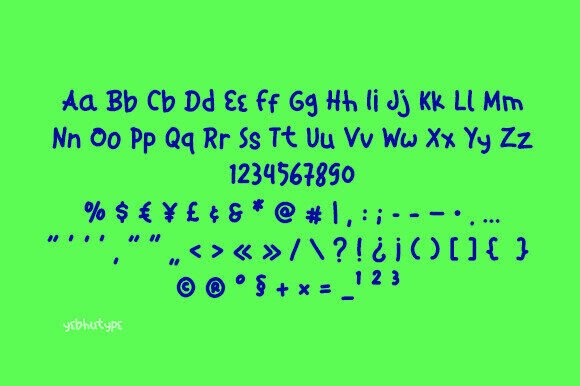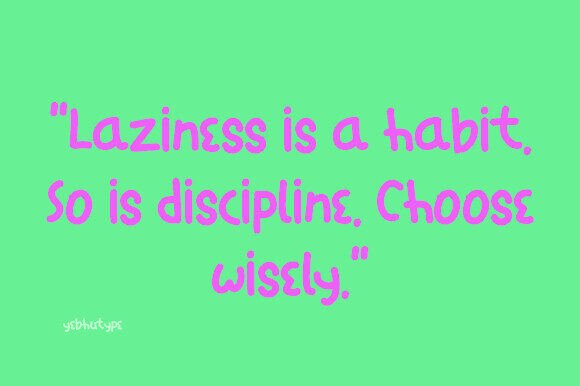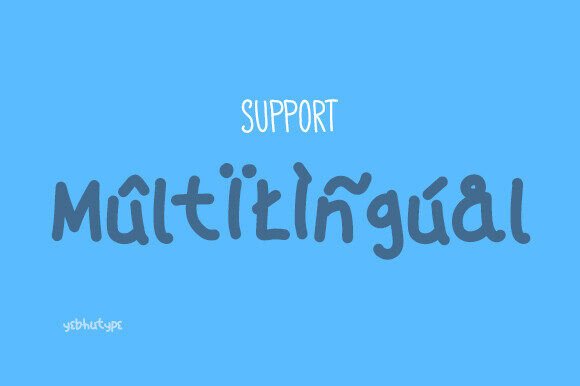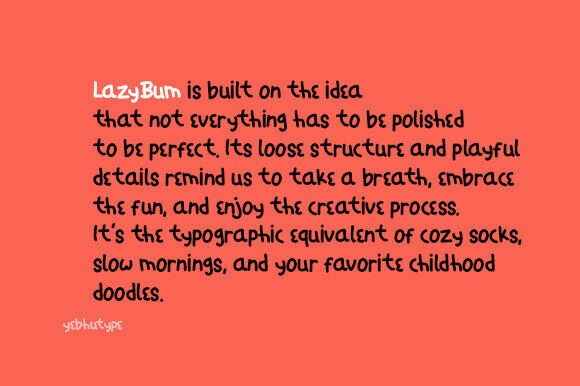
Introduction to Lazybum Font
Have you ever sat with a blank page, staring at a cursor, and just wanted to scribble something down without worrying about perfection? That’s the magic of Lazybum Font – a delightfully relaxed typeface that brings the carefree spirit of handwritten doodles and lazy afternoons to your design. With its quirky lines and bouncy rhythm, Lazybum Font is more than just a font – it’s a vibe that captures the joy of creating without pressure.
Whether you’re working on a creative project for kids, dreamers, or just looking to add personality to your words, Lazybum Font wraps your message in warmth, wonder, and just the right amount of mischief. This design resource is perfect for designers who want to add a touch of whimsy to their work without sacrificing high quality. And the best part? Lazybum Font is available for free download, complete with a transparent background that makes it easy to use in any design.
Key Features of Lazybum Font
- Features a unique, modern aesthetic that can add a touch of sophistication to any design
Honest Review: Lazybum Font
I recently stumbled upon the Lazybum Font while searching for a unique design resource for a creative project. I was drawn to its quirky, laid-back vibe, and I was excited to see how it would perform in my design.
What works well: ✨ The Lazybum Font is incredibly versatile and can be used for a variety of design projects, from logos to social media graphics. The font is also highly customizable, with a range of styles and sizes to choose from. The transparent background feature is a bonus, making it easy to layer the font over other design elements.
What doesn’t work so well: ⚠️ One limitation of the Lazybum Font is that it may not be suitable for all types of design projects. The font’s playful, handwritten style may not be the best choice for formal or professional designs. Additionally, the font may not be available in as many languages as some other fonts.
Overall, I was impressed with the Lazybum Font’s high quality and creative possibilities. While it may have some limitations, I think it’s a great addition to any designer’s toolkit.
Pros:
- Unique, laid-back design aesthetic
Cons:
- May not be suitable for formal or professional designs
- May not be available in as many languages
Using Lazybum Font in Creative Projects
The Lazybum Font is a high-quality font that can be used in a variety of creative projects, including logos, posters, and digital graphics. It features a transparent background, making it easy to use on any background color or image.
Getting the Most Out of Lazybum Font
To get the most out of the Lazybum Font, experiment with different font sizes, colors, and styles. You can also use the font in combination with other design elements, such as images and graphics, to create a unique and eye-catching design.
The Lazybum Font is commonly used in creative projects such as logos, posters, and digital graphics. It is also used in branding and marketing materials, such as business cards and brochures.